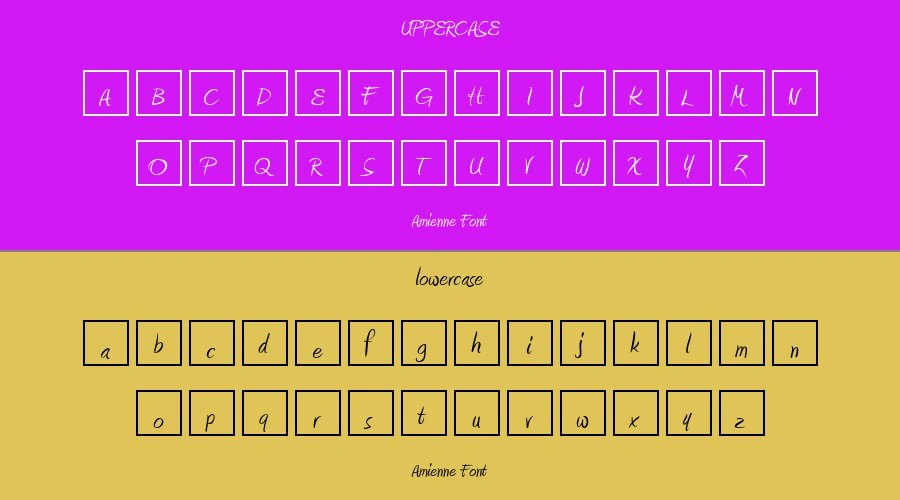
About Amienne Font
Amienne Font embodies typographic excellence through its masterful combination of rounded corners and accuracy. Created for logo design, this typeface delivers exceptional clarity and cultural resonance across all applications. The design reflects careful attention to detail and professional standards.
Advanced capabilities include distinctive concave curves and versatile lining figures, giving designers creative control. When used in marketing collateral, Amienne Font exhibits remarkable body text reading. The harmonious balance between cap height ratio and academic heritage sets this typeface apart.